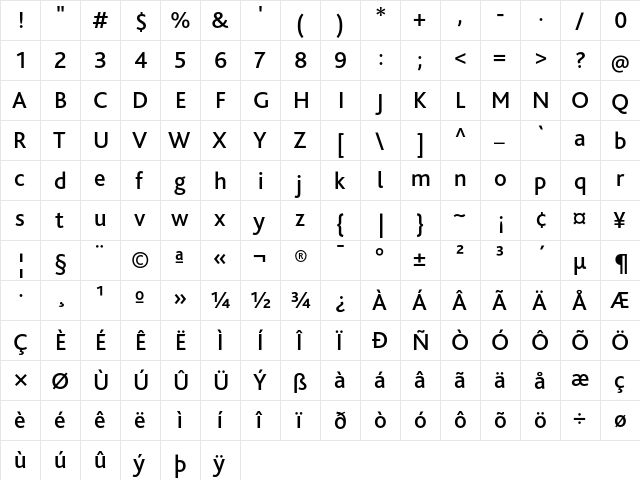
BlissPro Medium Font Preview
BlissPro Medium
BlissPro Medium Font Details
Design Context for BlissPro Typeface
BlissPro offers clean, dependable letterforms without strong stylistic allegiance, making it a practical choice for designers who need flexibility.